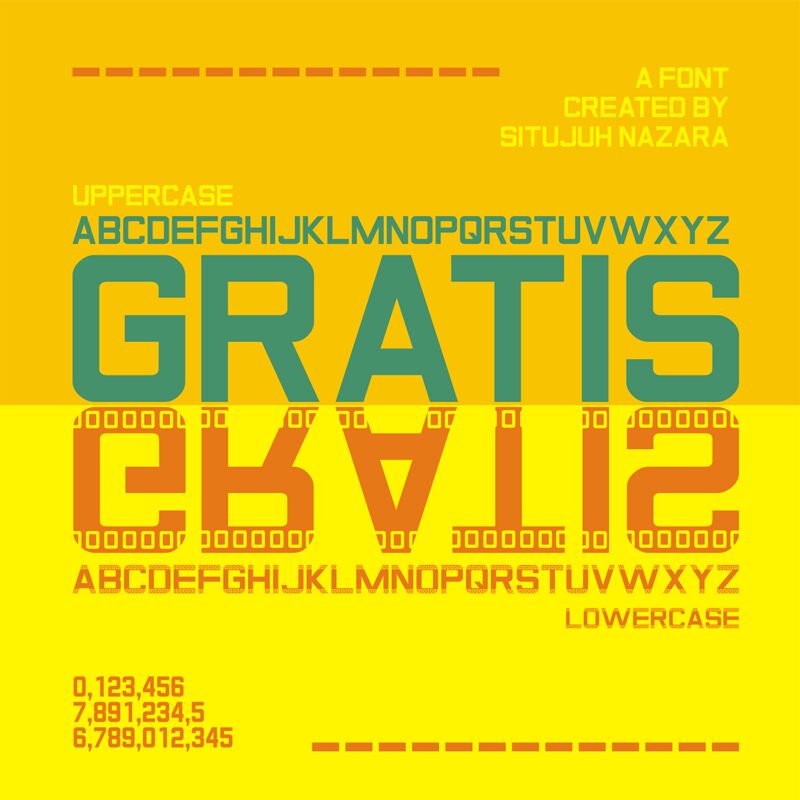
Gratis is a free filmstrip-inspired sans serif with towering, extremely heavy capitals and a distinctly cinematic profile. The broad black strokes frame slim rectangular openings, and many outer corners soften into compact curves instead of ending sharply. Rows of tiny perforations provide its unmistakable detail.
Independent cinemas, production studios, and retro media brands could use it for posters, event signage, and merchandise because the lettering already suggests a physical strip of celluloid. In editorial features or festival graphics, those repeated sprocket holes can echo film frames, contact sheets, and photographic borders, turning the words into part of the screen-era imagery.
Situjuh Nazara